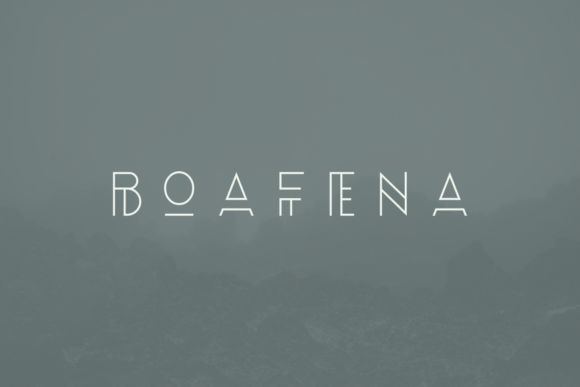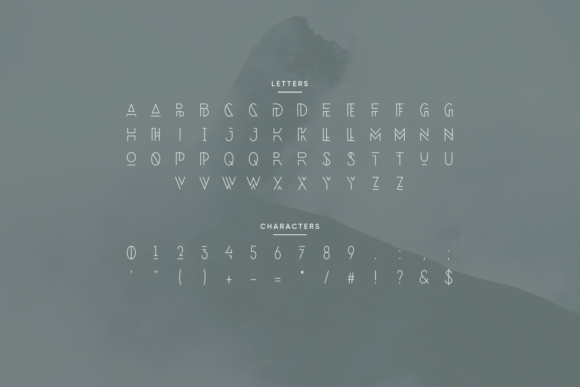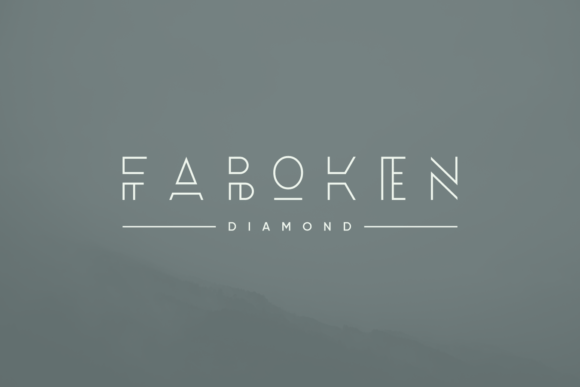
Introduction to Mafobah Font Font
Fonts play a crucial role in design, and the Mafobah Font font is a typeface that brings both character and versatility to any project. Whether you’re working on a branding project, a website, or a print design, the Mafobah Font font offers a unique style that can elevate your work.
Proudly presenting this elegant font inspired by current digital title typography trends, this font is unique with a very modern and luxurious style.
The beautiful geometric pieces will be perfect for various types of designs, product packaging logos, fashion and future designs, feel free to use this on futuristic or gaming designs .
Key Features of Mafobah Font Font
Why Choose Mafobah Font Font?
The Mafobah Font font is more than just a typeface – it’s a design tool that helps you communicate your message with style and clarity. Its unique character set and versatile design make it suitable for a wide range of applications, from elegant invitations to bold headlines.
With its carefully crafted letterforms and balanced proportions, the Mafobah Font font ensures readability and visual appeal across all mediums.
What makes Mafobah Font font special?
The Mafobah Font font stands out with its unique design, exceptional readability, and versatility across various design applications.